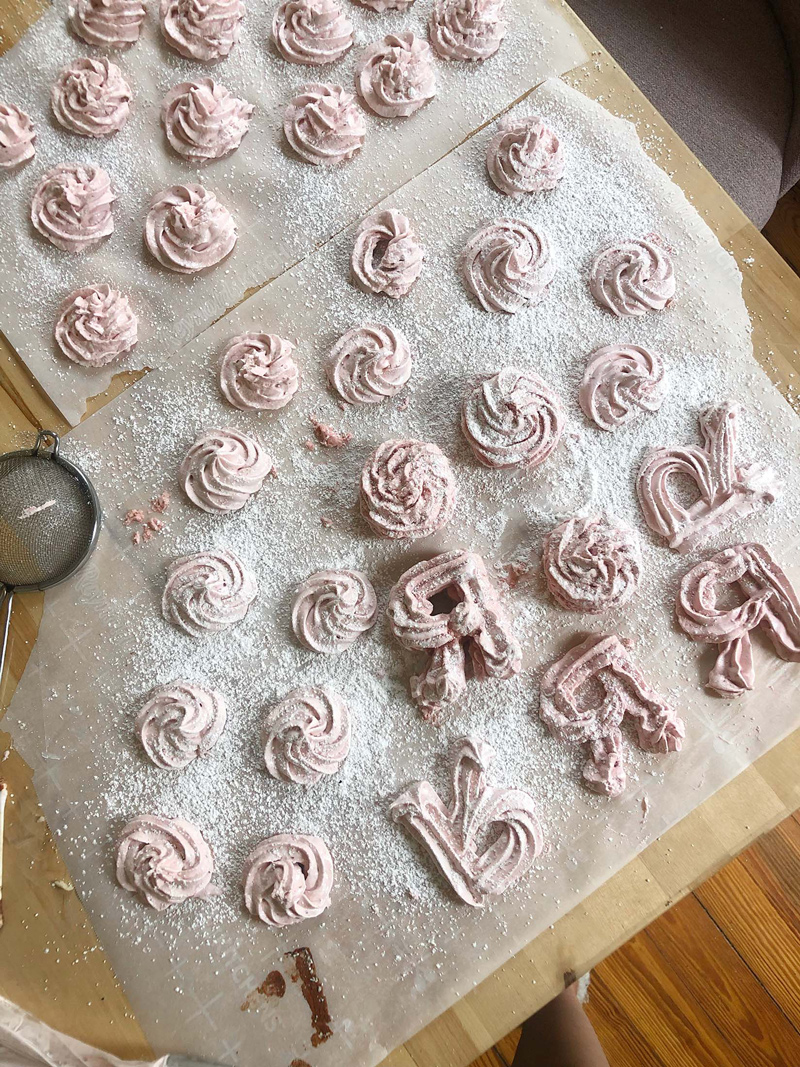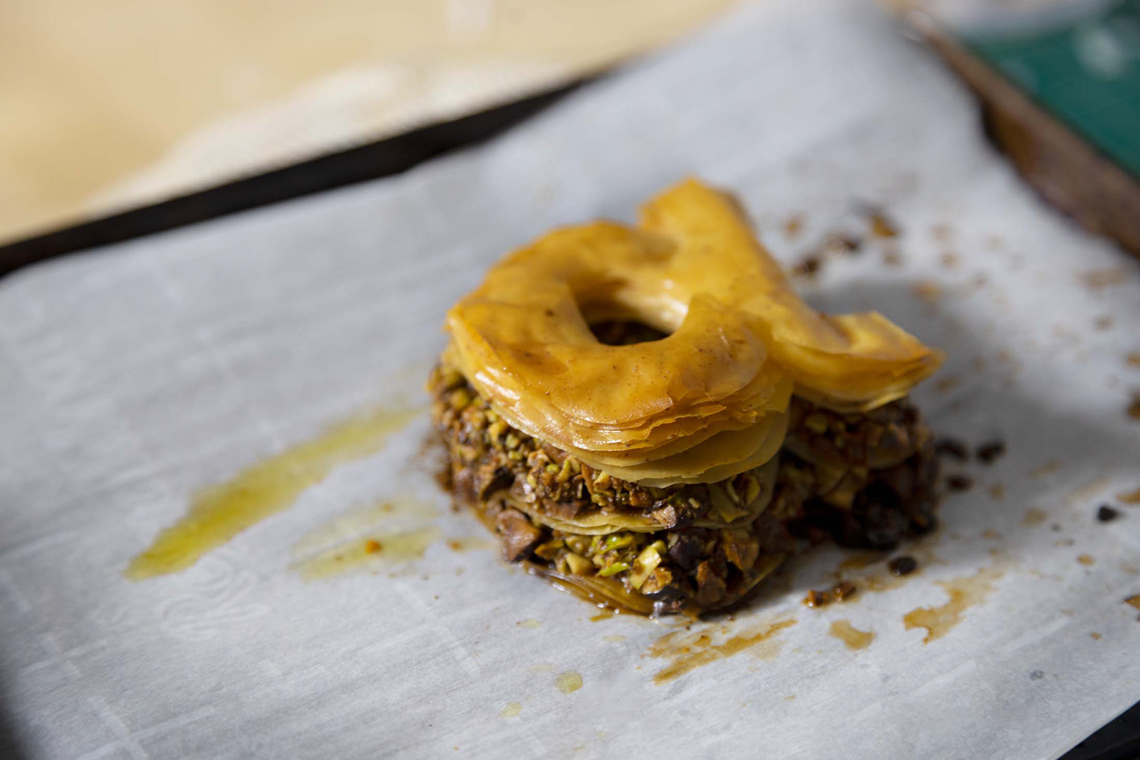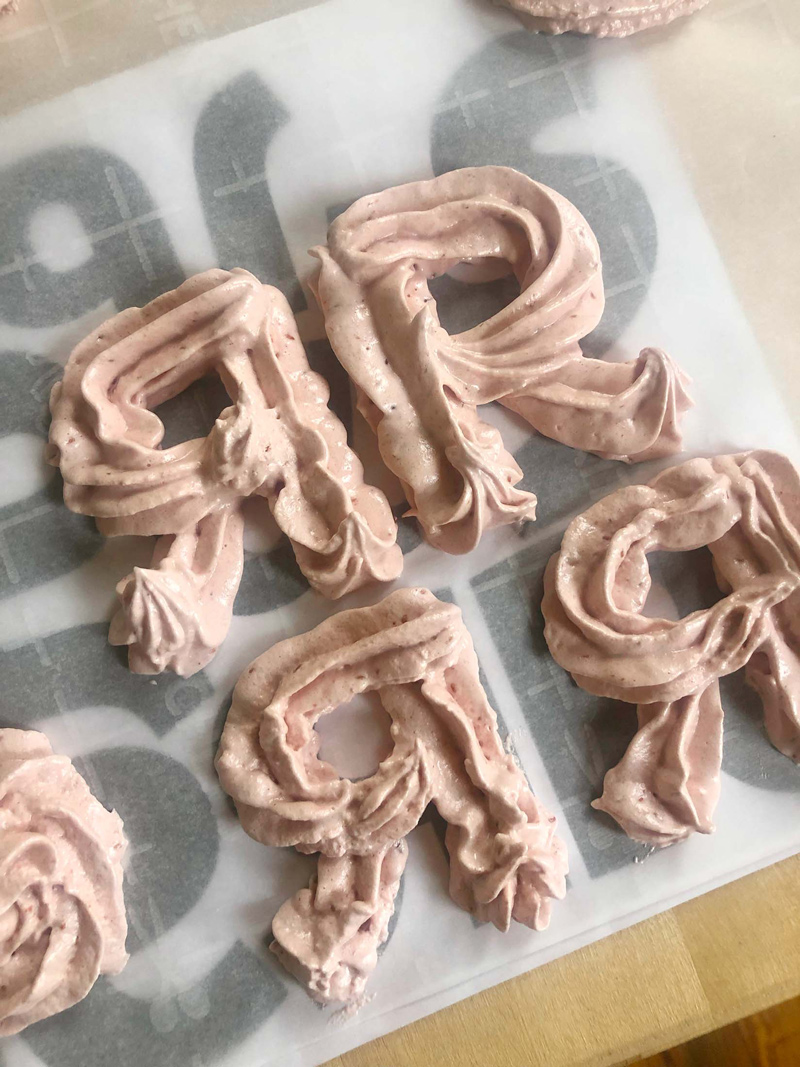
Behind the scenes with Danielle Duncan (Evans)
Combining fonts, food, and creativity is what our friend Danielle Duncan (Evans) does best. But it takes a serious amount of work to get it from a basic idea to prime-time-ready. Here’s some decadent behind-the-scenes goodness for our multiscript Bree expansion.
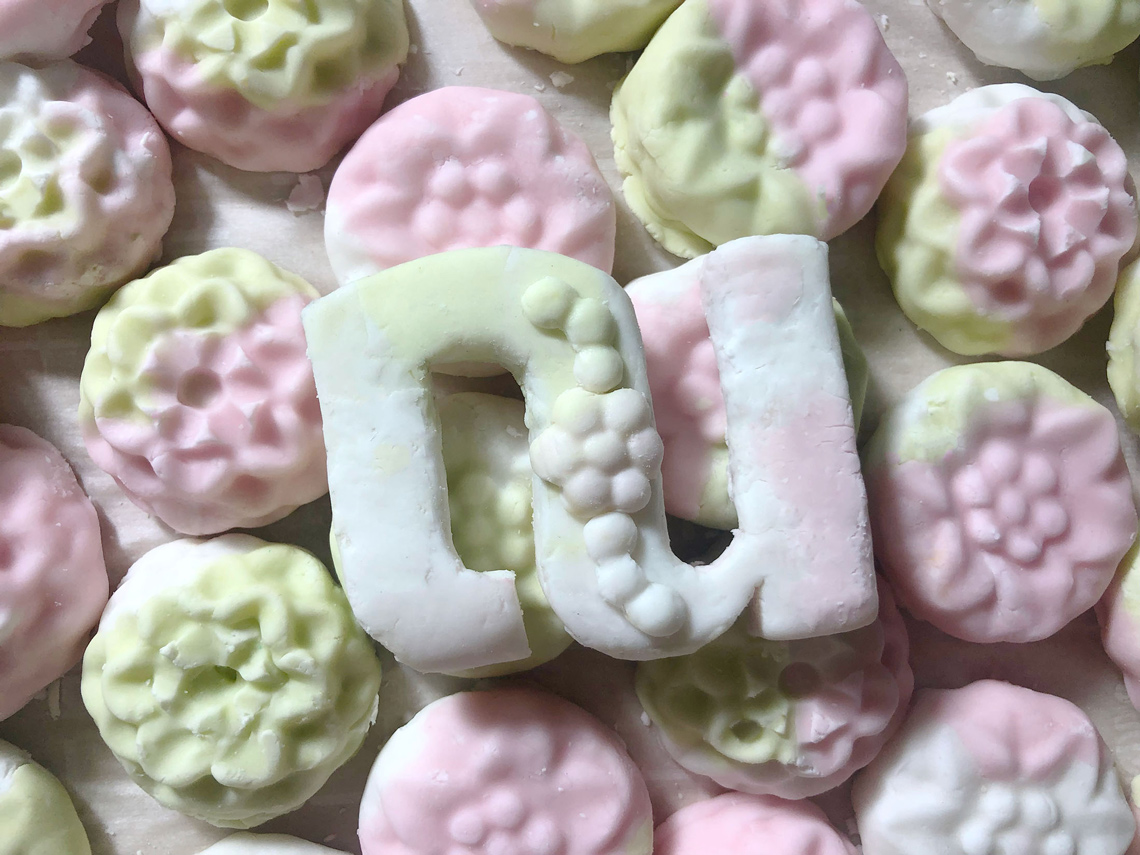
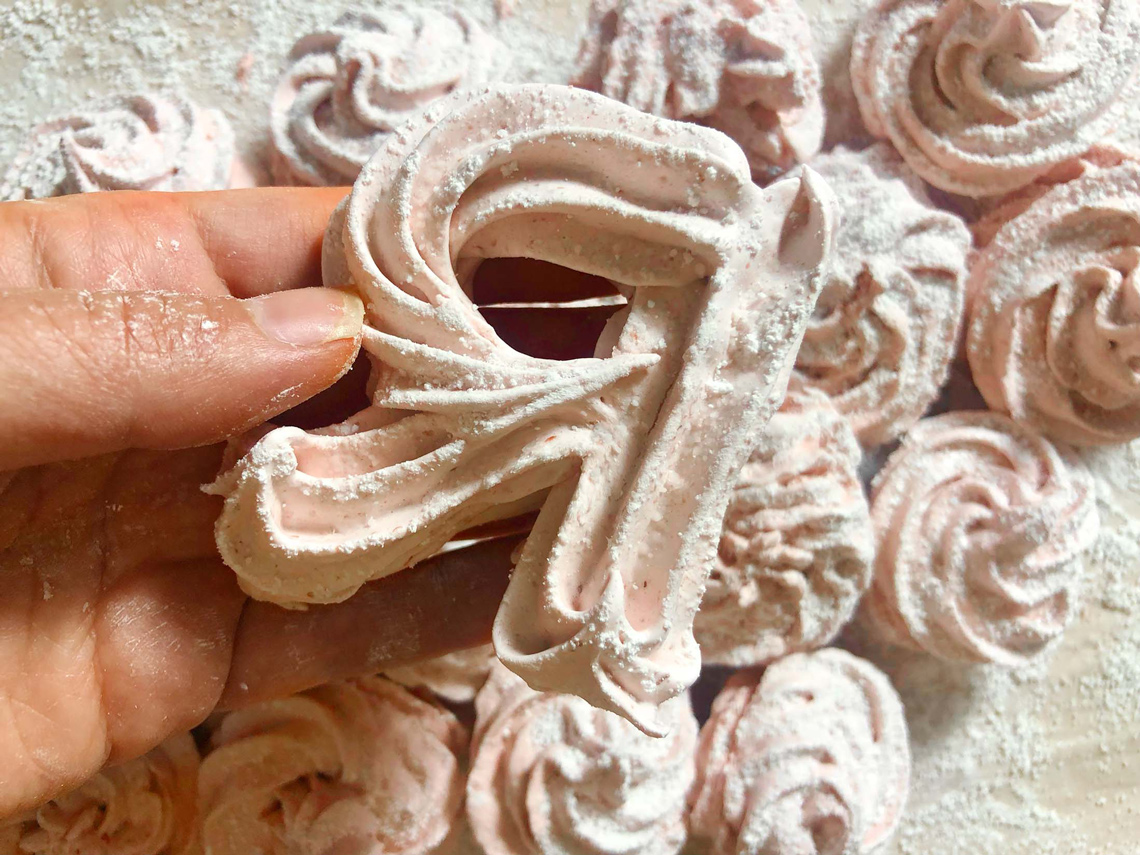
Sweet Yields
Not everything is sugar plums and fairies, especially when it comes to physical products that can change character over the course of even a few hours. Danielle Duncan (Evans), known online as Marmalade Bleue, knows this better than most since she is the mind behind the influential “food typography” category, among other creative endeavours. You’ve seen her tasteful and layered work for Target, Disney, McDonald’s, Kansas City Chiefs football, Tazo teas, Bath & Body Works, and so much more.
As Danielle made the video announcing the expansion of our Bree family, she captured some behind the scenes action for your enjoyment, as well as some thoughts on the process. What went into Danielle’s video? A lot! Let’s hear it in her own words.
“Within the video there were thirty layers of phyllo dough dutifully cut for the Greek baklava. Thirty-two Thai cookies were fashioned in three colors using speciality silicone molds. I made forty-one raspberry zephyrs and seven Russian tea cookies for the Cyrillic characters. The Roman and Arabic characters were frozen seven times. (Each partially melted on four different occasions!) And every dropped cookie was dropped (and broken) fourteen times on average.”
“Bree is near and dear to my heart! When I began my studio, it was my brand font so I was thrilled when TypeTogether asked to combine forces for the release of additional scripts. As a lettering artist and food typographer, it is critical to choose a distinctive but subtle font to offset my body of delicious work. While I have since moved on (hello, Bely!), I’ve never forgotten my roots!”
“Usually people hire me out for a typographic style as well as video and photo assets. However, TypeTogether’s international team had already come together to determine the theme and vibe for the Bree expansion. So I was happy to take a backseat and honor their hard work. I hope I did them justice!”